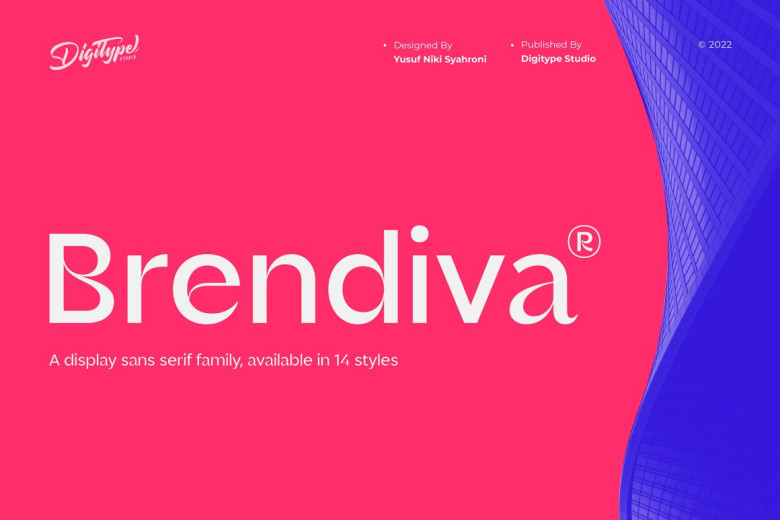
Brendiva Font
Brendiva Font Family is now available, providing 14 variations for display sans serif typeface. Featuring its professional appearance and contrast in some letters that offers an attractive and distinctive style, Brendiva font is ideal for logos, branding magazines, packaging books, labels fashion novels makeup as well as any other advertising needs.
Brendiva Sans Serif Font